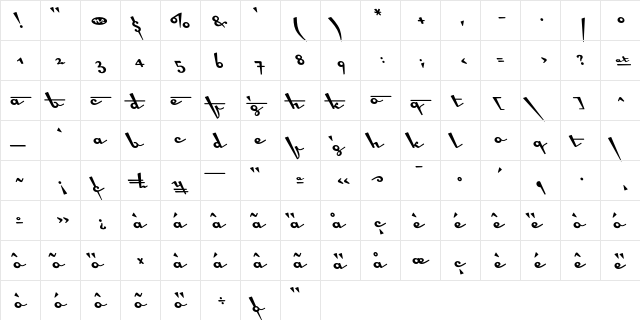
Cottingley Outgoing
Design Context for Cottingley Typeface
Cottingley is a composed and adaptable typeface that performs quietly and consistently across a wide range of design contexts.